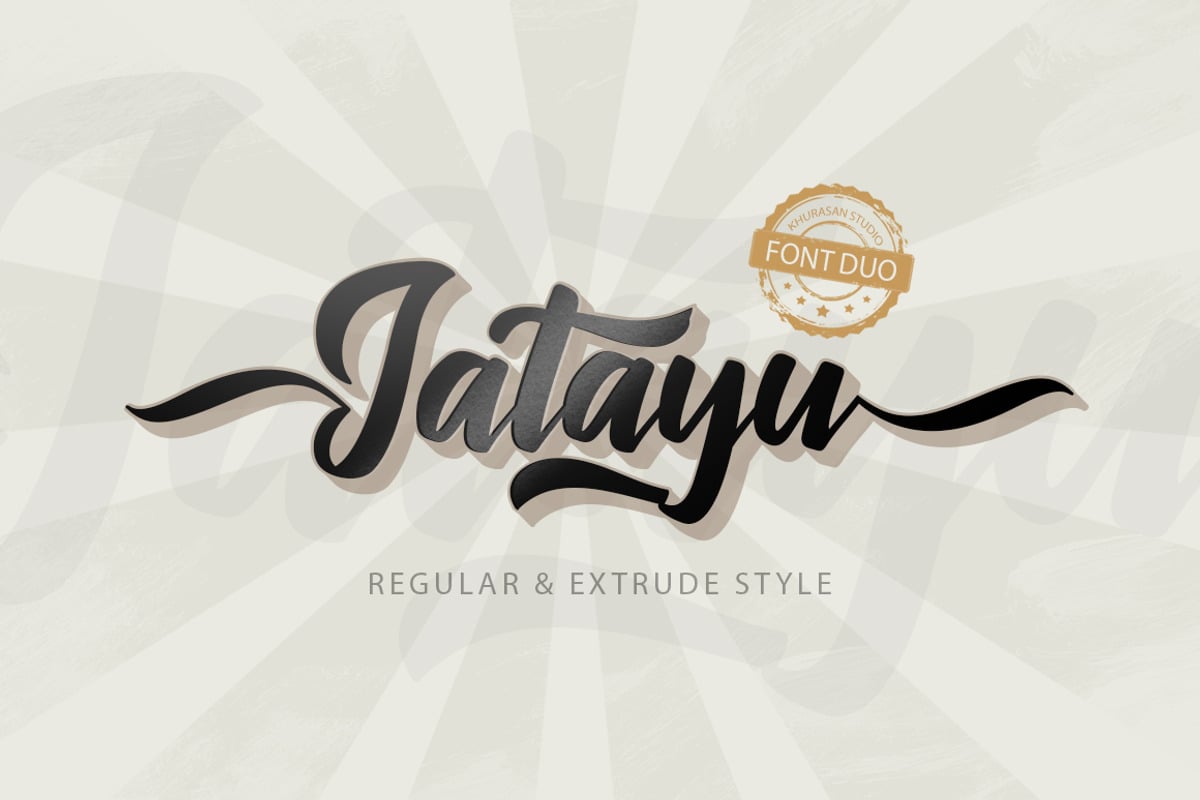
Jatayu Layered Script Font
Create stunning layered typography designs with this bold, modern script font duo that commands attention. The Jatayu Font delivers a fun, bold script style with a fresh and modern aesthetic. This versatile typeface includes two distinct styles - regular and extrude - that you can combine to achieve amazing layered effects in your designs. Perfect for logo design, branding projects, greeting cards, posters, and any creative work that needs a bold typographic statement. The dual-style approach gi...